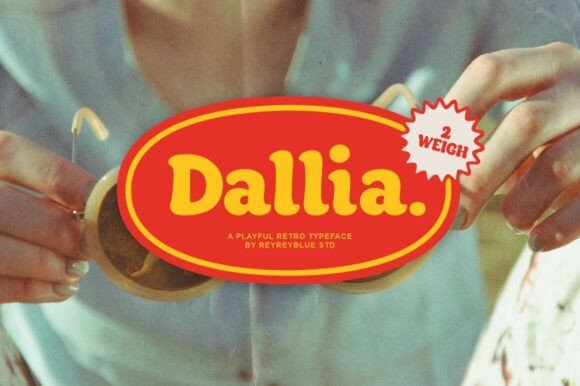
Dallia Font: The Ultimate Vintage-Inspired Typeface for Your Designs
Are you searching for a font that can add a touch of warmth and character to your designs? Look no further than the Dallia font. This bold, classic typeface is perfect for a wide range of design projects, from logos and packaging to posters and social media graphics. In this article, we’ll explore the features and benefits of the Dallia font, and why it’s the ideal choice for creative businesses, food brands, and more.
What is Dallia Font?
Dallia is a vintage-inspired font that combines classic typography with a modern twist. Its bold, yet elegant design makes it perfect for adding a touch of sophistication to your designs. Whether you’re creating a logo, packaging, or promotional materials, Dallia is the perfect choice for businesses that want to stand out from the crowd.
Key Features of Dallia Font
- Retro yet modern: Dallia has a classic look that’s perfect for businesses that want to evoke a sense of nostalgia, while still appearing modern and contemporary.
- Easy to read: The font is clear and legible, making it perfect for use in a variety of designs, from signage to social media graphics.
- Versatile: Dallia is a versatile font that can be used in a wide range of designs, from logos and packaging to posters and promotional materials.
Why Choose Dallia Font?
There are many reasons why Dallia is the ideal choice for your design projects. Here are just a few:
1. Retro yet Modern – A Classic Look with Contemporary Appeal
Dallia has a timeless quality that makes it perfect for businesses that want to evoke a sense of nostalgia. At the same time, its modern design ensures that it looks contemporary and fresh. This makes it perfect for businesses that want to stand out from the crowd and create a unique brand identity.
2. Easy to Read and Versatile for Various Designs
One of the key benefits of Dallia is its ease of use. The font is clear and legible, making it perfect for use in a variety of designs. Whether you’re creating a logo, packaging, or promotional materials, Dallia is easy to read and understand. This makes it perfect for businesses that want to communicate their message clearly and effectively.
3. Perfect for Food, Café Branding, Creative Businesses, and Many More
Dallia is a versatile font that can be used in a wide range of designs. It’s perfect for food brands, cafes, and creative businesses that want to add a touch of warmth and character to their designs. Whether you’re creating a logo, menu, or promotional materials, Dallia is the perfect choice.
Use Cases for Dallia Font
Dallia is a versatile font that can be used in a wide range of designs. Here are just a few examples:
1. Logos and Branding
Dallia is perfect for creating logos and branding materials that make a statement. Its bold, classic design makes it perfect for businesses that want to evoke a sense of nostalgia and tradition.
2. Packaging Design
Dallia is also perfect for packaging design. Its clear and legible design makes it easy to read and understand, even on small packaging materials.
3. Posters and Social Media Graphics
Dallia is perfect for creating posters and social media graphics that grab attention. Its bold, classic design makes it perfect for businesses that want to stand out from the crowd and create a unique brand identity.
4. Food and Café Branding
Dallia is perfect for food brands and cafes that want to add a touch of warmth and character to their designs. Its vintage-inspired design makes it perfect for businesses that want to evoke a sense of nostalgia and tradition.
How to Use Dallia Font
Using Dallia font is easy. Here are just a few tips:
1. Choose the Right Size
When using Dallia font, it’s essential to choose the right size. The font is clear and legible, but it may be too small for some designs. Experiment with different sizes to find the one that works best for your project.
2. Pair it with Other Fonts
Dallia font can be paired with other fonts to create a unique and visually appealing design. Experiment with different font combinations to find the one that works best for your project.
3. Use it Consistently
To create a cohesive brand identity, it’s essential to use Dallia font consistently across all your designs. This will help to create a recognizable brand identity that resonates with your target audience.
In conclusion, Dallia font is the ultimate vintage-inspired typeface for your designs. Its bold, classic design makes it perfect for a wide range of design projects, from logos and packaging to posters and social media graphics. With its ease of use, versatility, and timeless quality, Dallia is the perfect choice for businesses that want to add a touch of warmth and character to their designs.